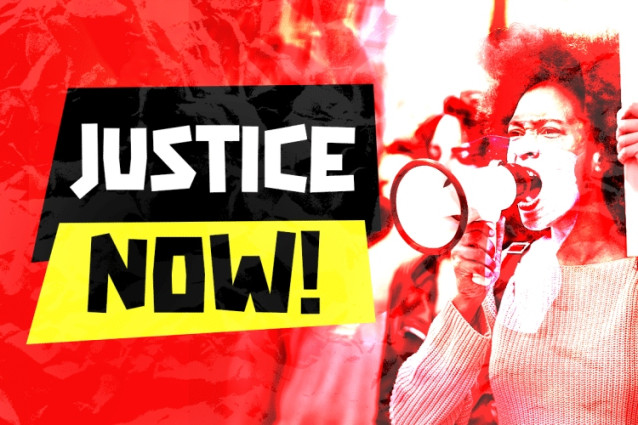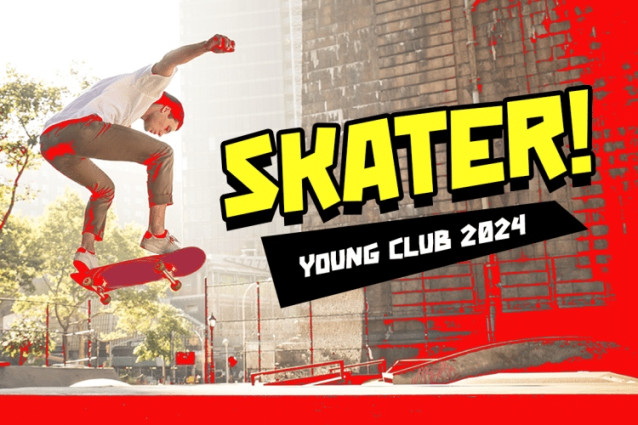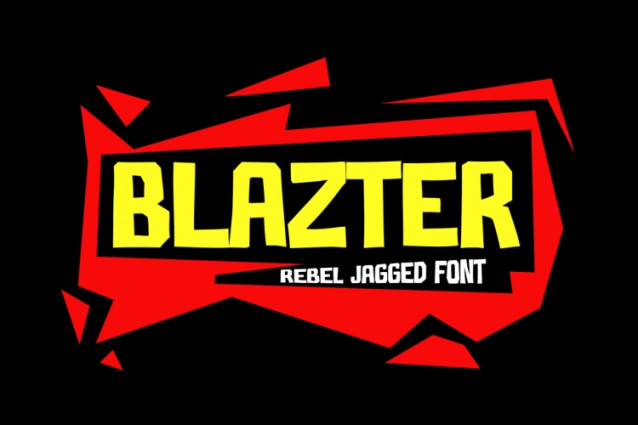
Blazter Font
Funny font Blazter is a bold and jagged display font designed to exude energy and rebellion. With its sharp, irregular edges and bold design, this font is perfect for projects that demand a strong, edgy, and adventurous vibe. Moreover, the unique, angular letters immediately capture attention, making it ideal for designs aiming to stand out and make a statement.
In addition, Blazter carries a dynamic and modern feel, which adds intensity to any creative project. Furthermore, its vibrant and chaotic aesthetic makes it suitable for projects that need a youthful, rebellious, or unconventional look. The bold strokes and sharp details give the font an impactful and loud personality. As a result, this font doesn’t just communicate; it shouts with confidence and creativity. Whether for branding, posters, or digital content, Blazter ensures your message gets noticed and remembered.